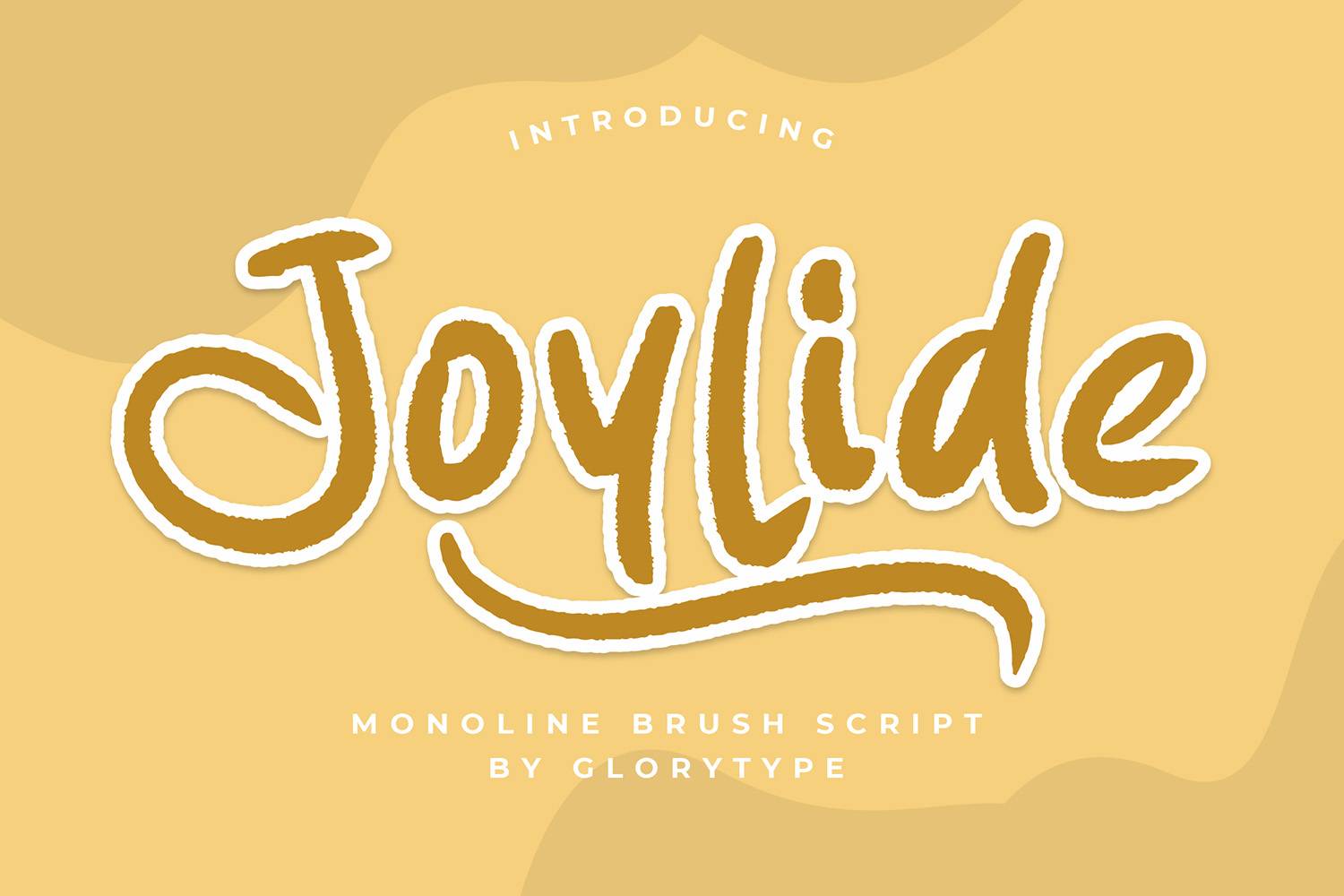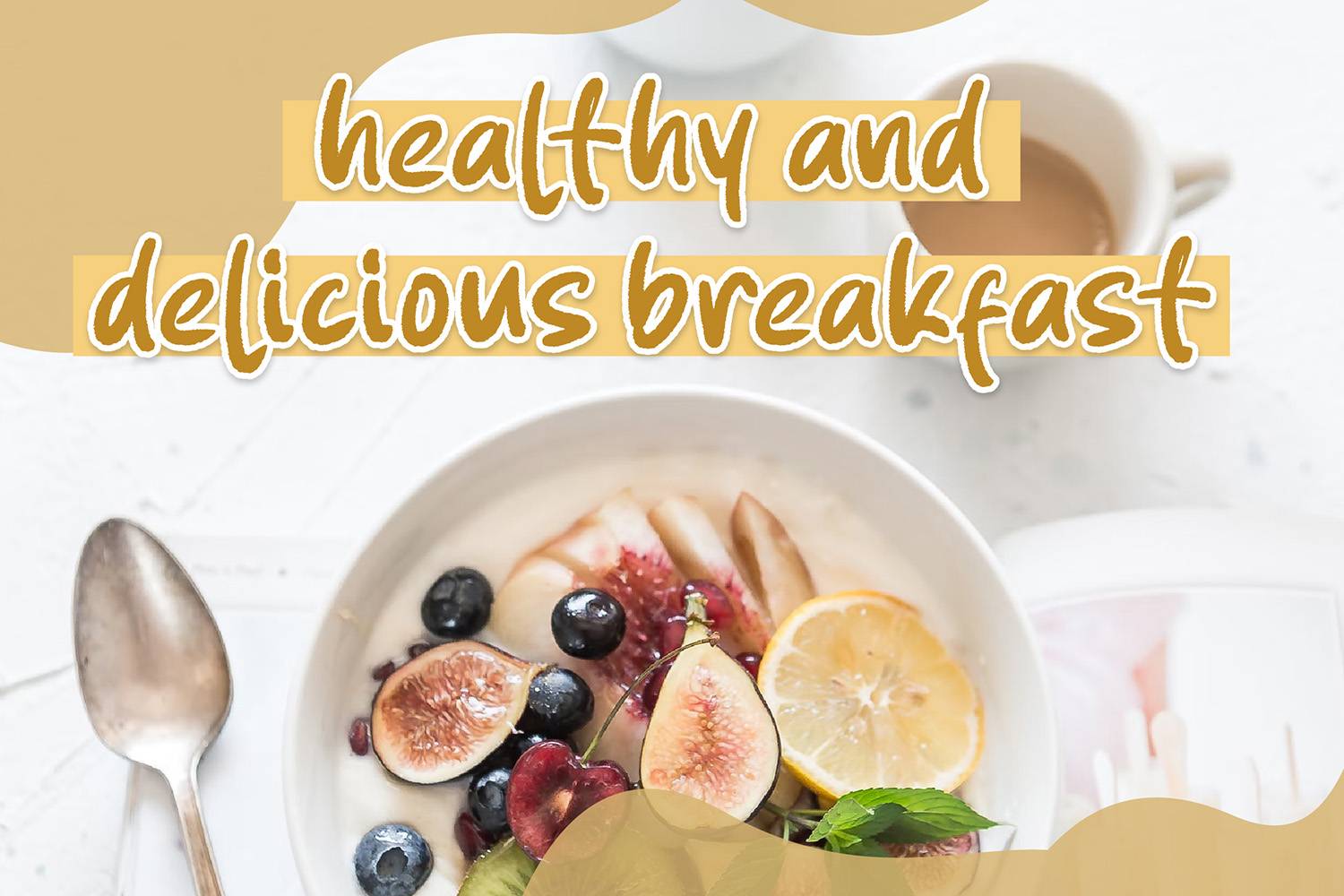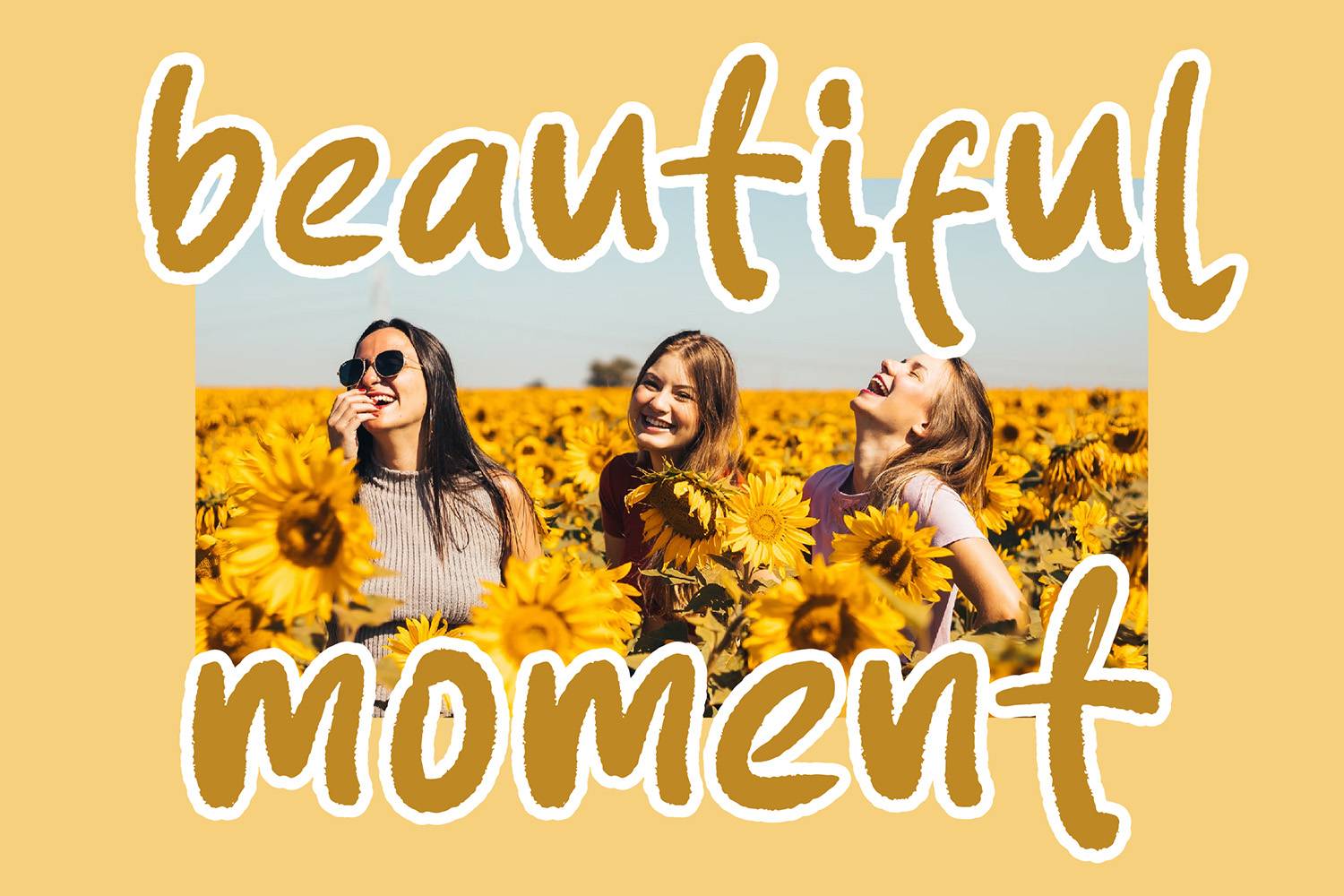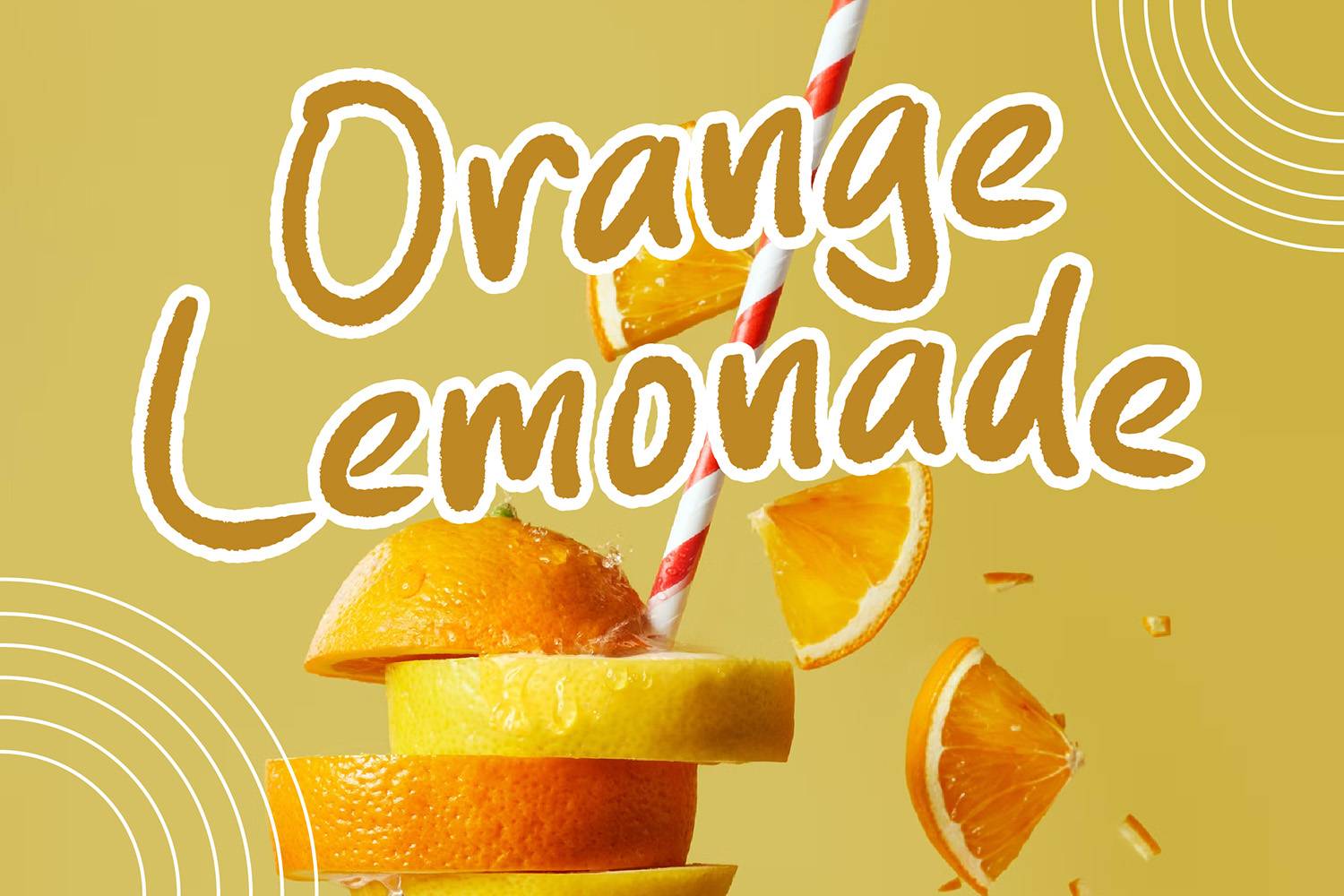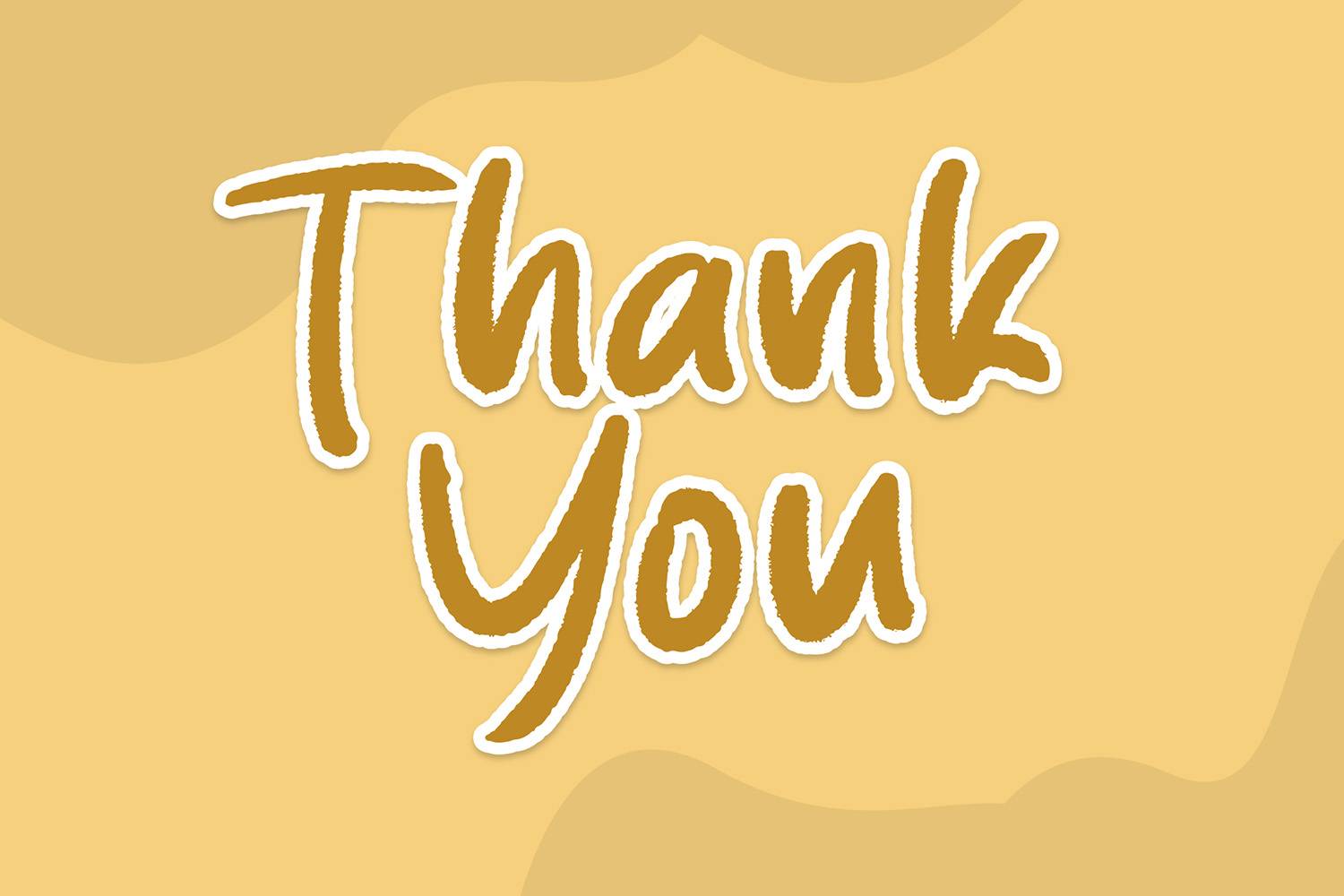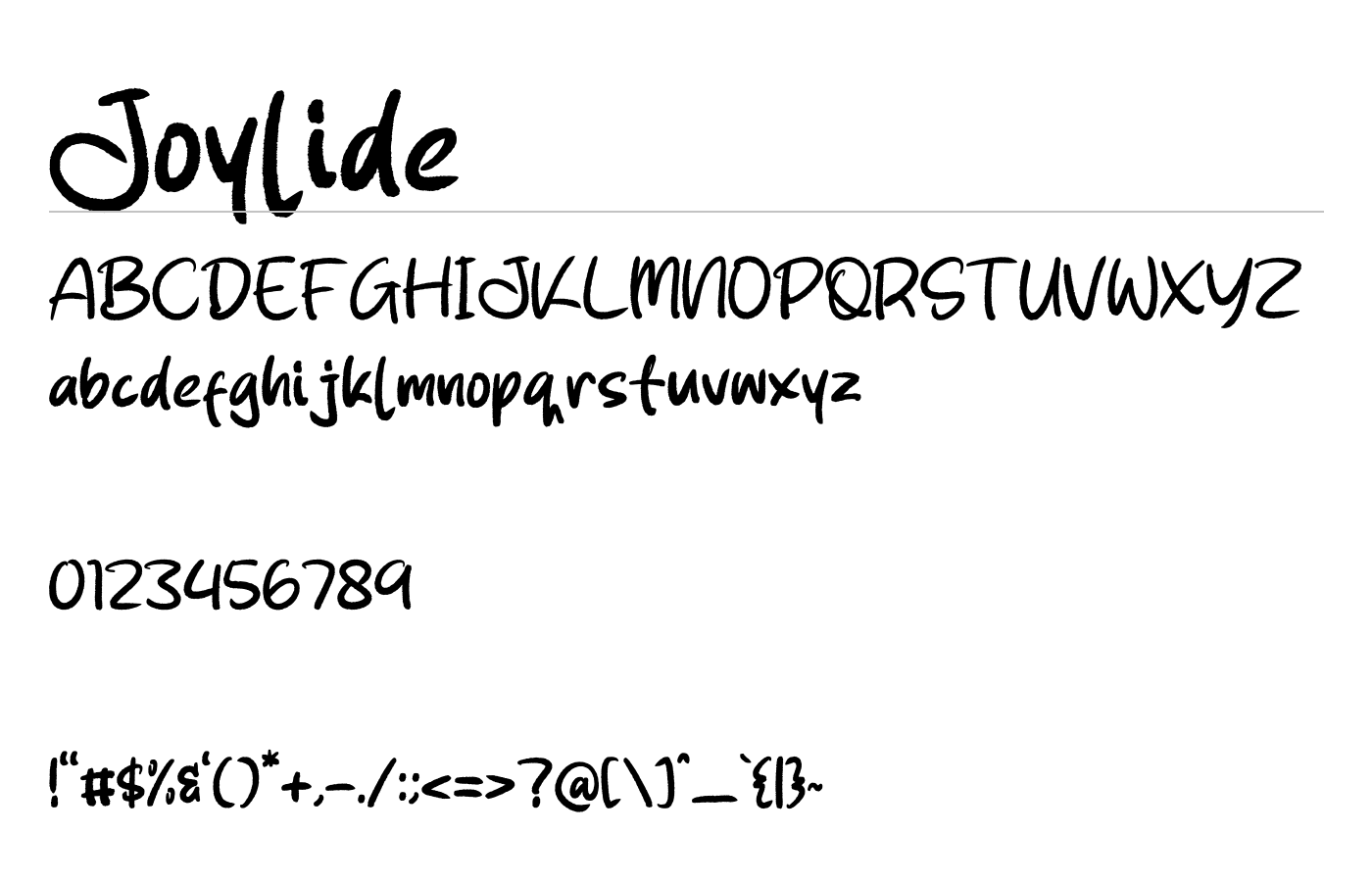
Joylide is a playful, hand-drawn script font with a casual, friendly feel. Its irregular strokes and lively letterforms give it a personal, energetic touch, perfect for creative projects, informal branding, and invitations that seek warmth and approachability. This font works well in headlines, logos, and designs that aim to evoke joy and spontaneity.
Joylide Font
About Joylide Font